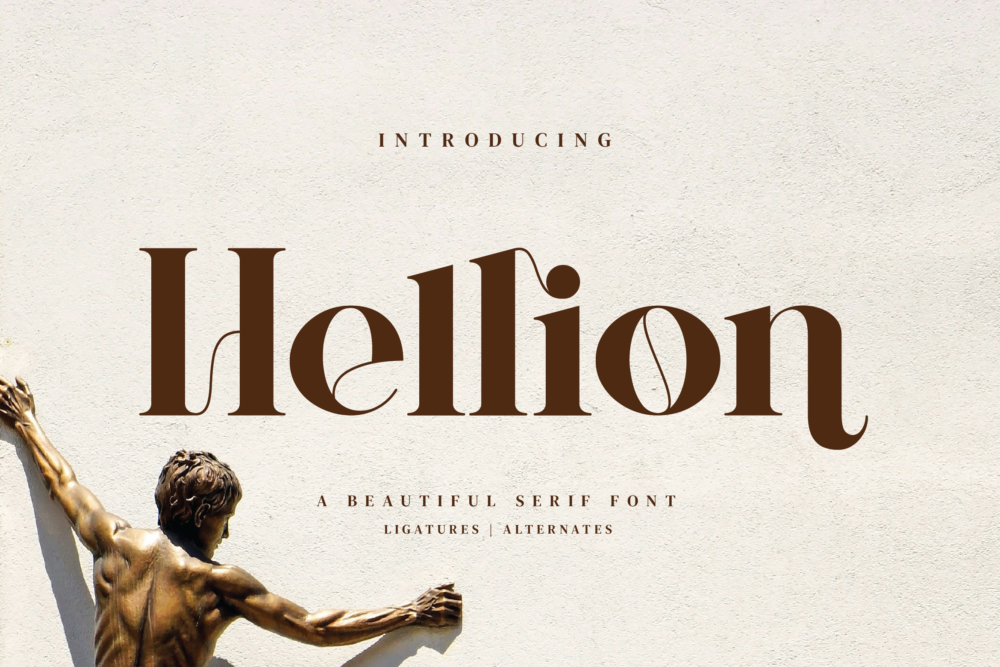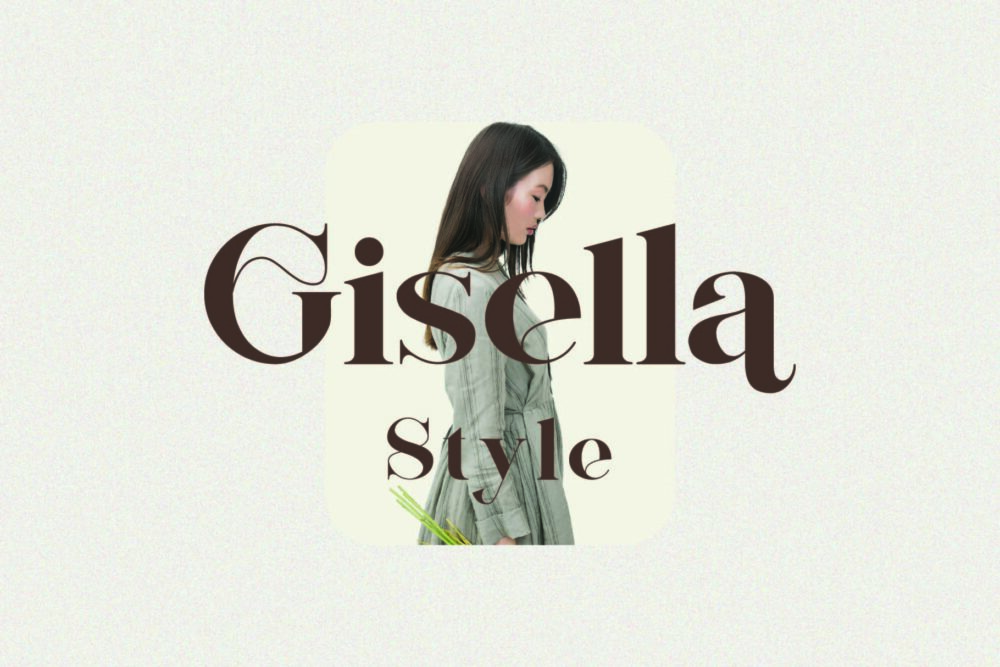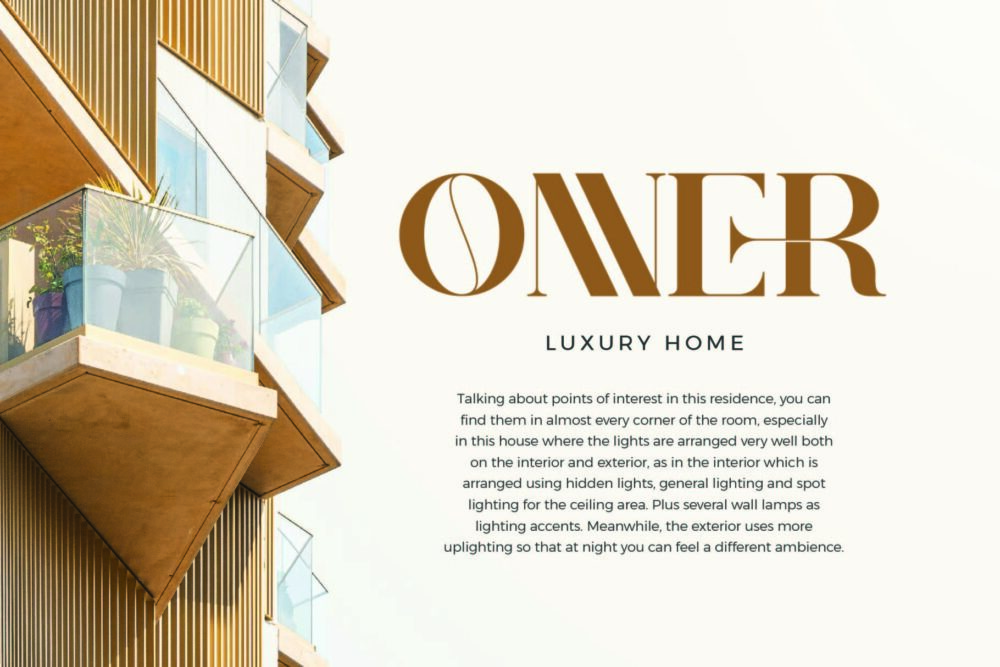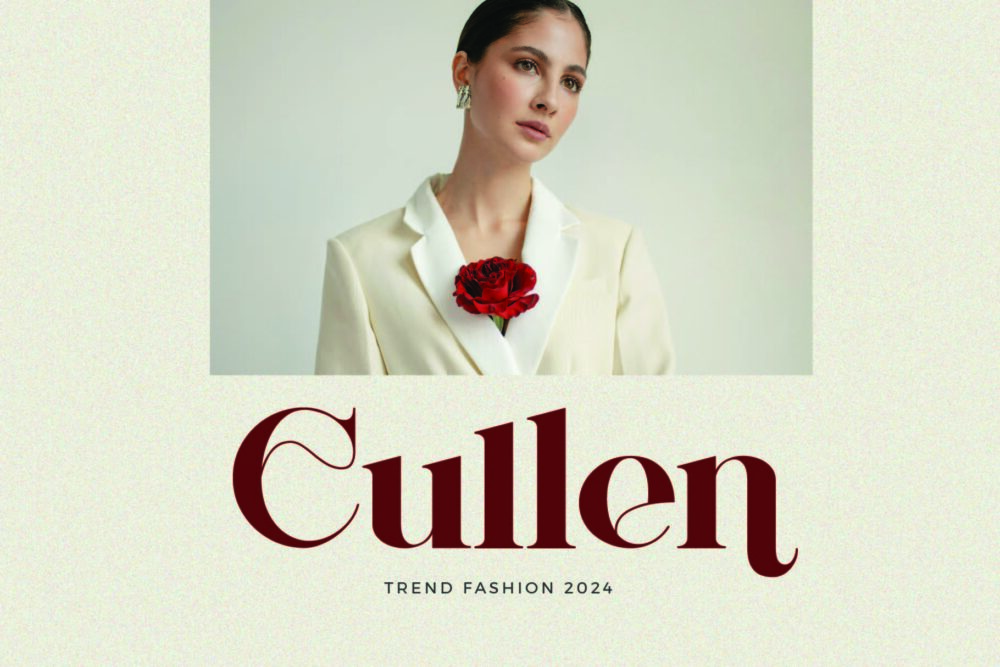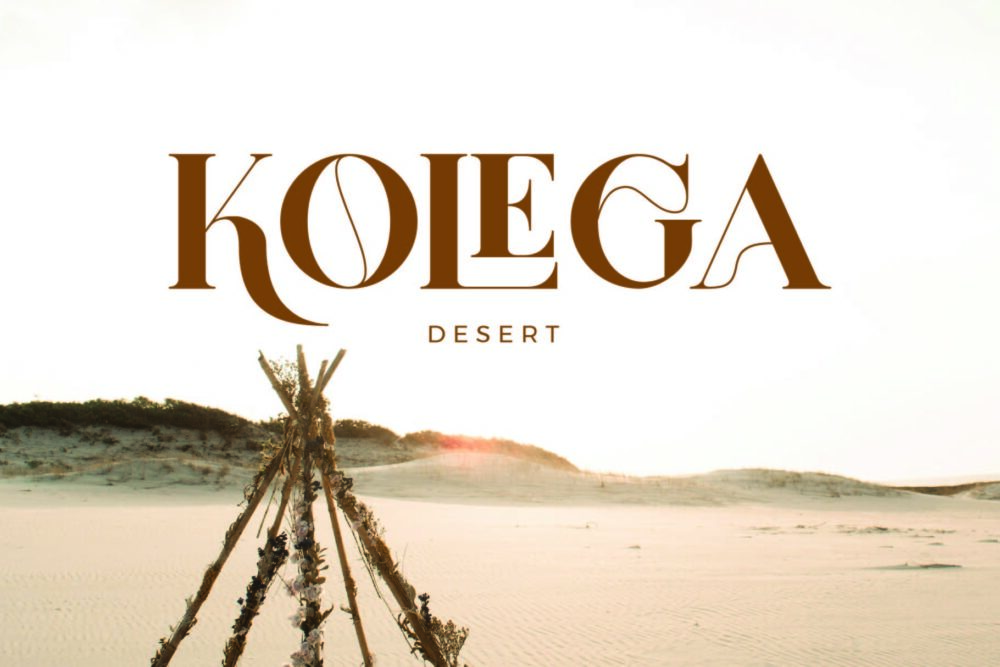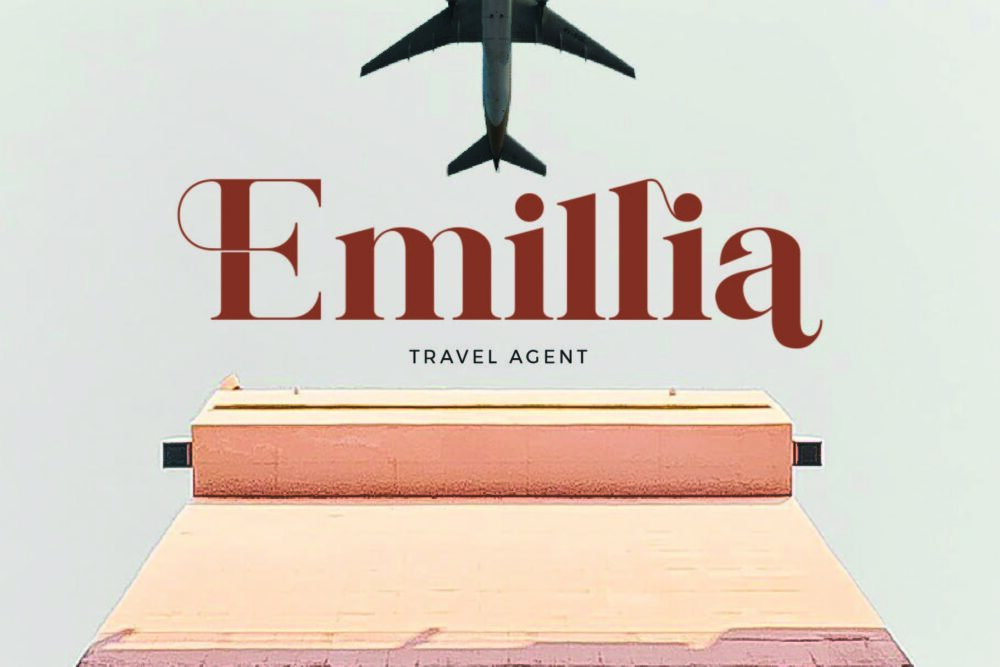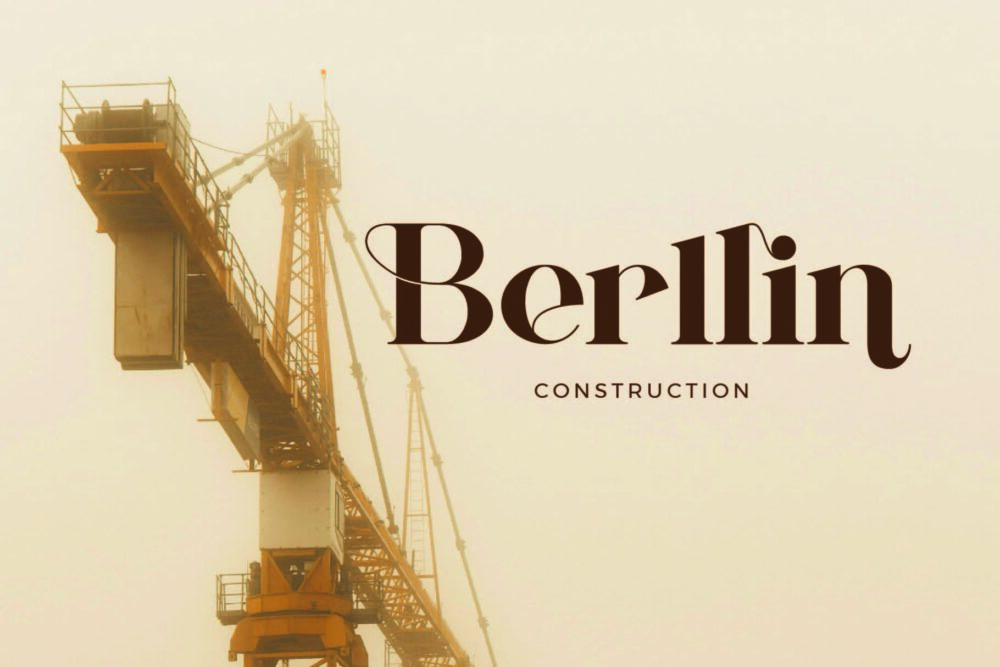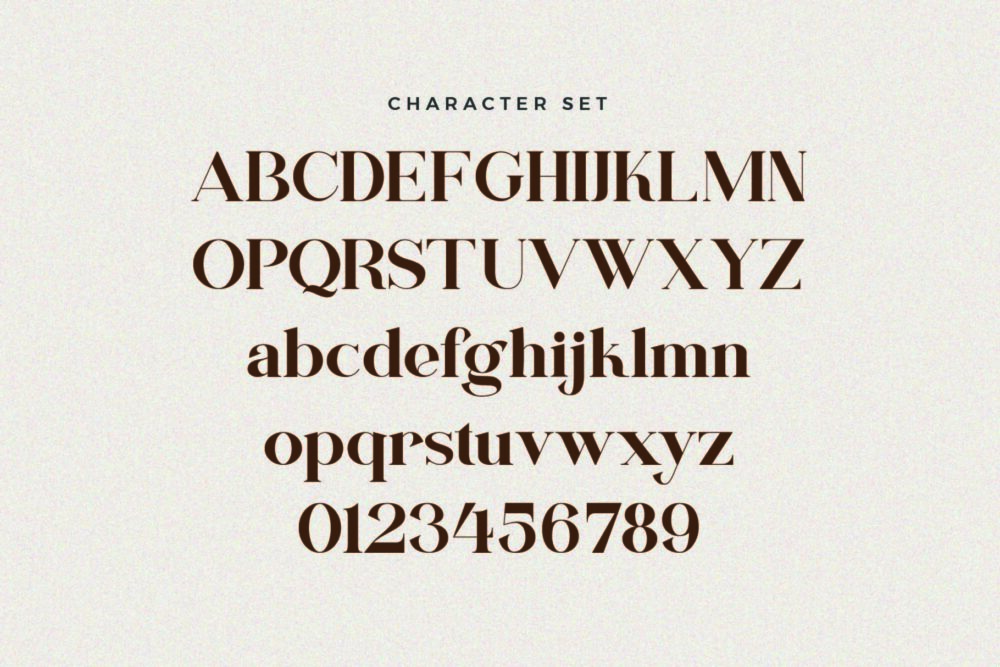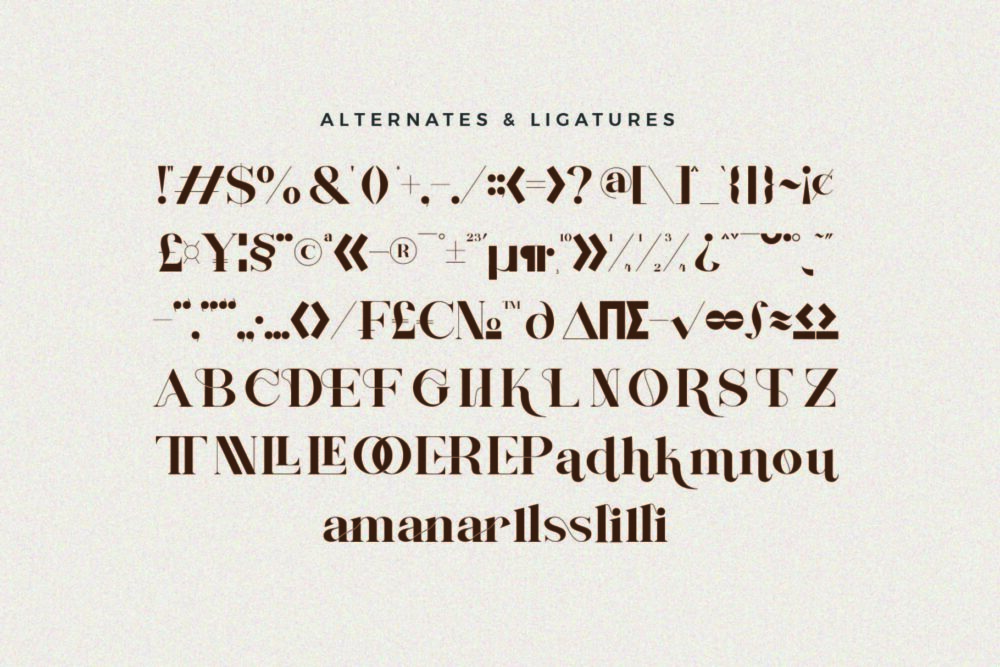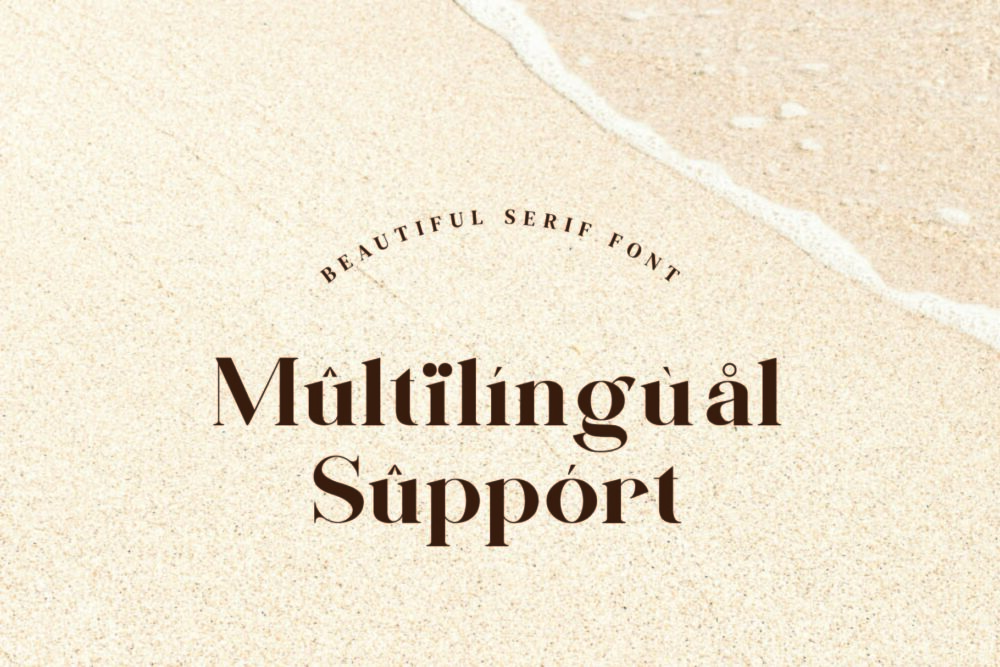
Hellion Stylish Ligature Typeface, inspired by the famous minimalist logo perfect for the purposes of designing templates, brochures, videos, advertising branding, logos and more.